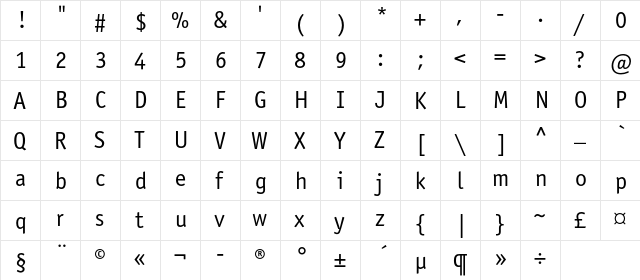
OfficinaSansBookC Regular Font Preview
OfficinaSansBookC Regular
Design Context for OfficinaSansBookC Typeface
OfficinaSansBookC offers clean, dependable letterforms without strong stylistic allegiance, making it a practical choice for designers who need flexibility.